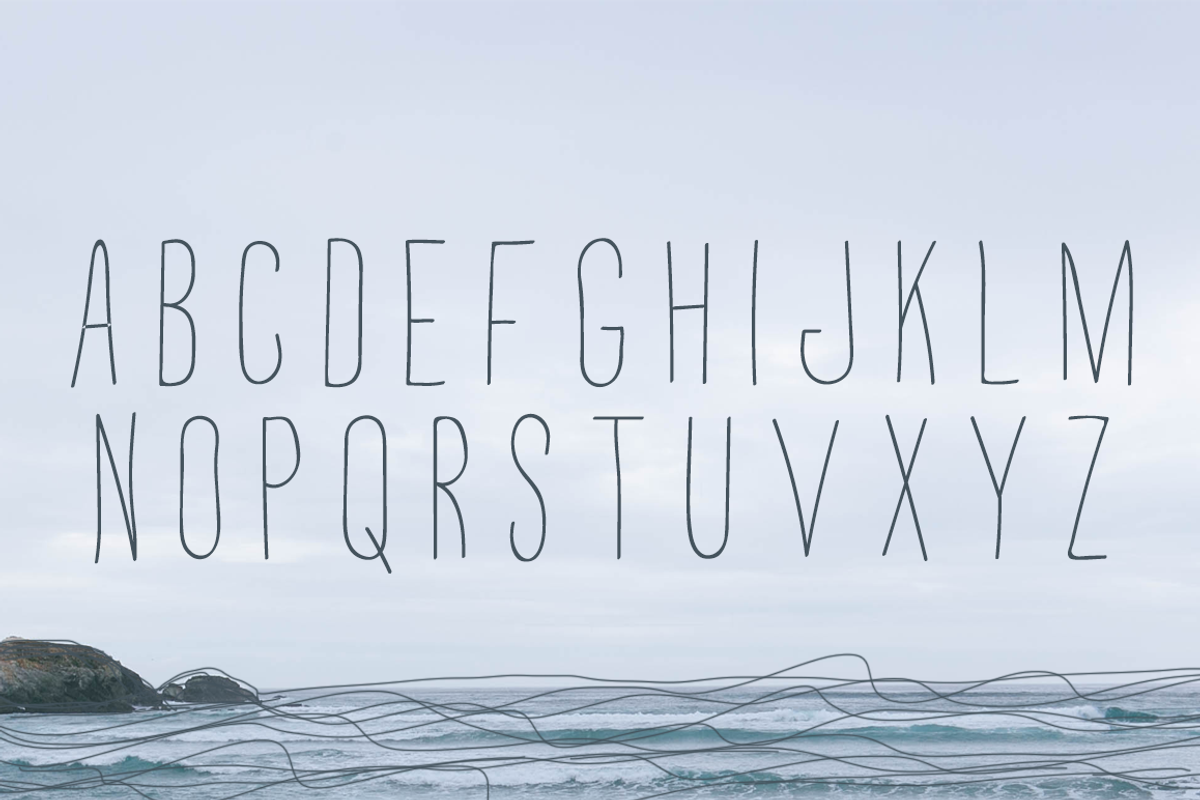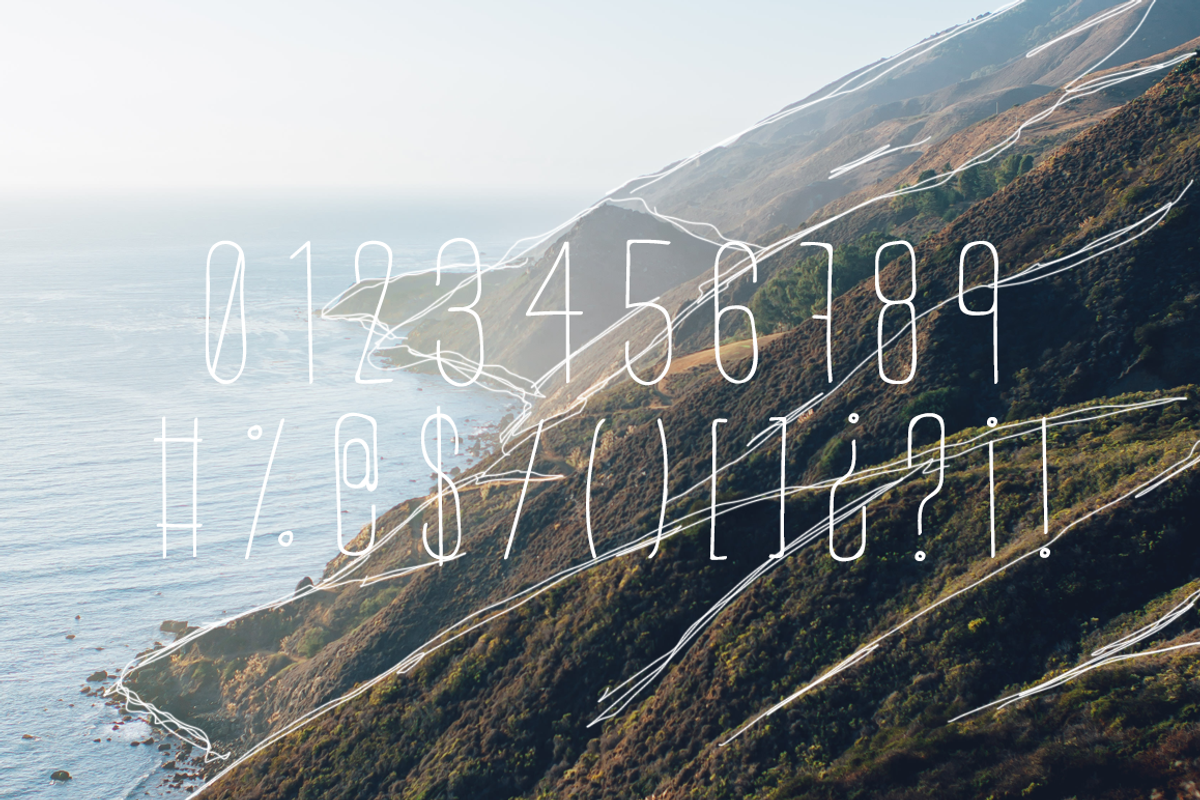
Big Sur — Light Font
Big Sur — Light Font by Noe Araujo is a font selected for branding, posters, packaging, typography.
- Capital + Numbers + Special Characters Show More
Why Big Sur — Light Font is worth a look
Big Sur — Light Font by Noe Araujo fits naturally into Branding, posters, packaging, typography.